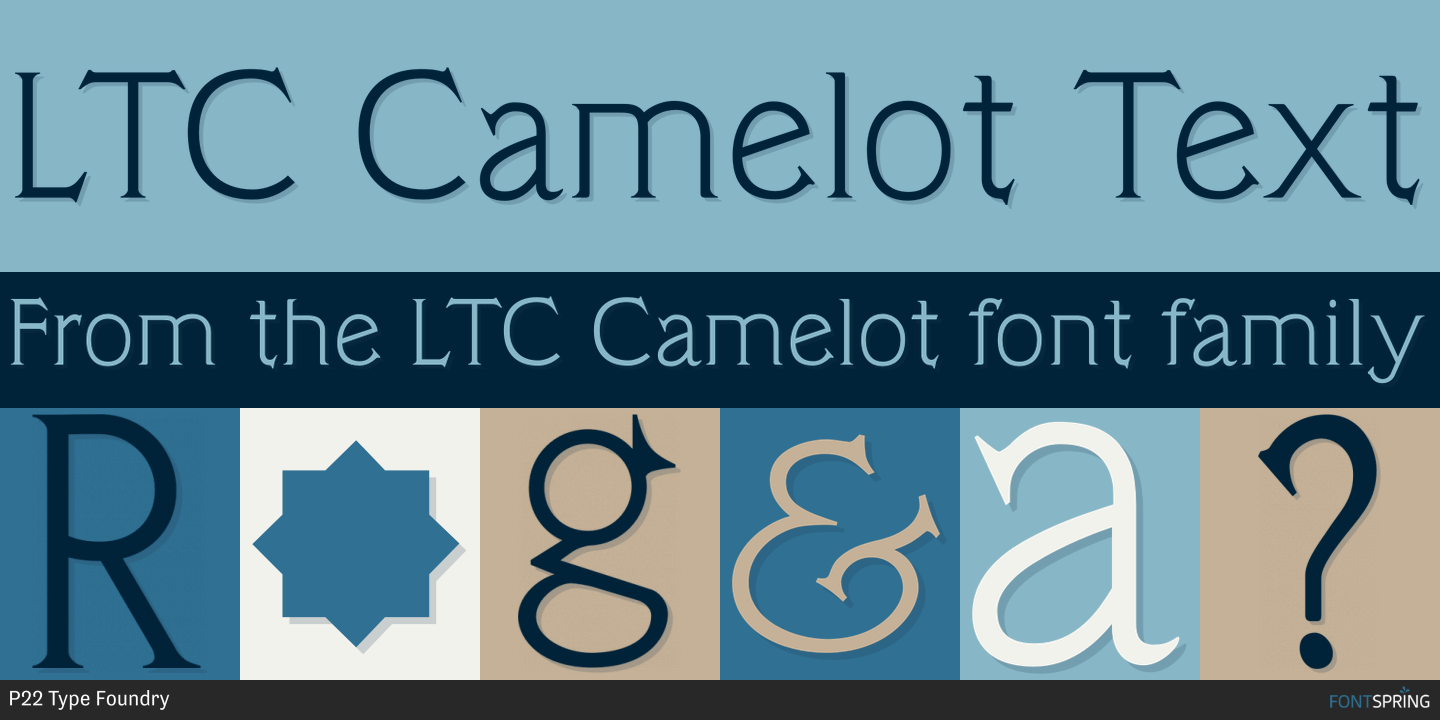
LTC Camelot
Designed by Frederic W. Goudy, LTC Camelot is a serif font family. This typeface has two styles and was published by P22 Type Foundry.
Camelot was the first of over 100 typefaces designed by Frederic Goudy. The upper case characters were drawn in 1896 for the Dickinson Type Foundry. Goudy was so encouraged by his check for $10 (double what he asked for the drawings), that he spent the next 50 years designing type. The lower case was added by the Dickinson foundry. This Lanston digital release includes a “text” version based on the smaller point sizes of the metal type and a “display” version based on the larger sizes. The two appear different in size but share the exact same line weight when at the same point size.